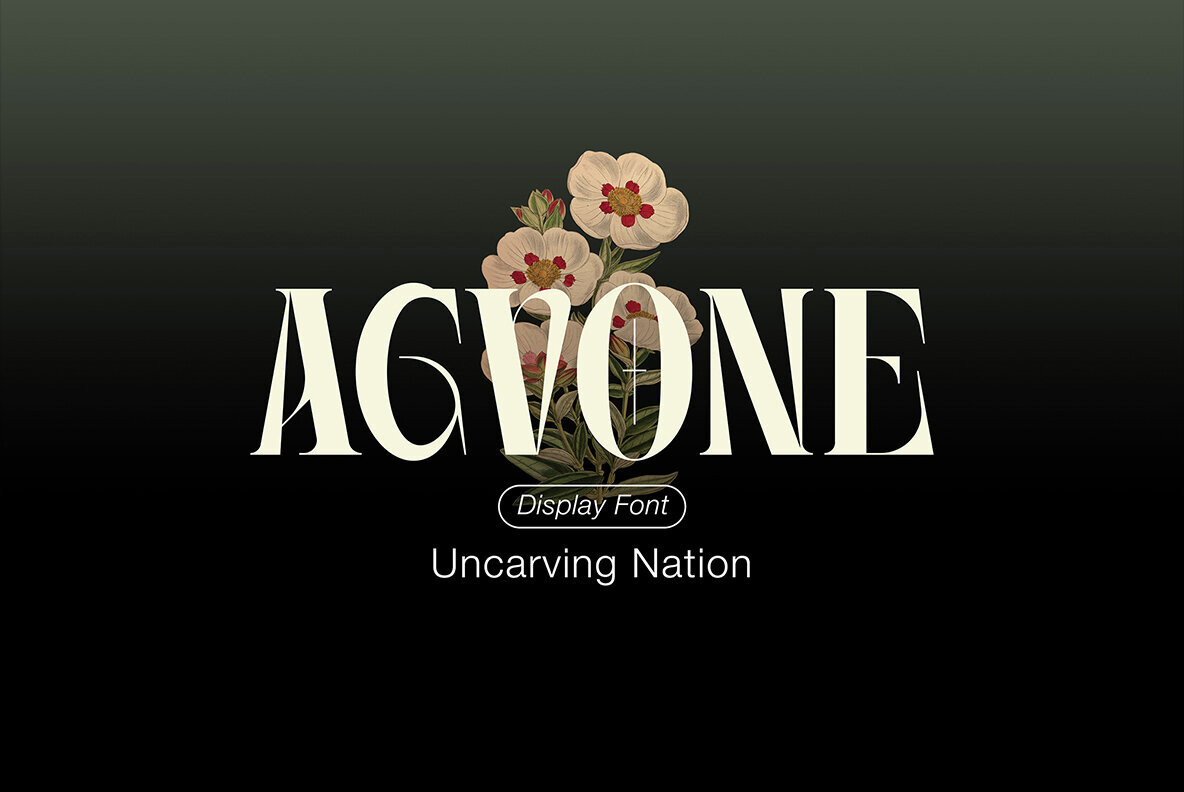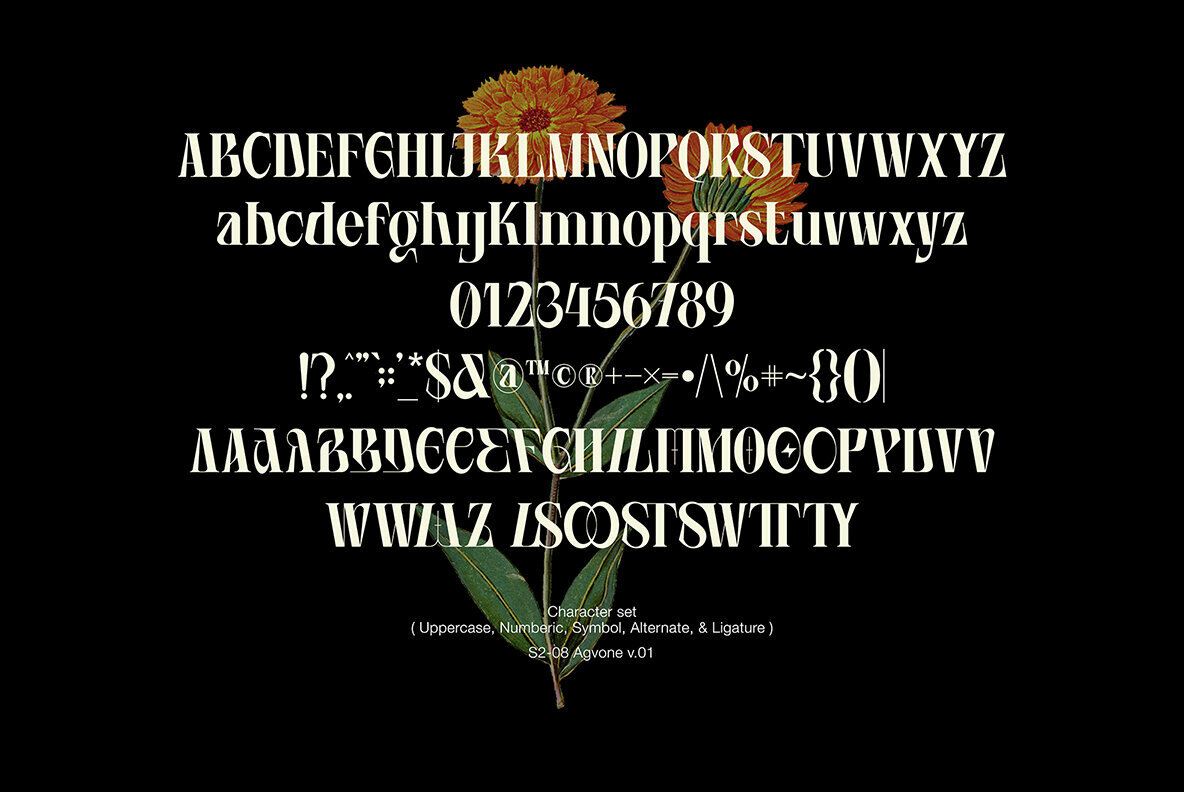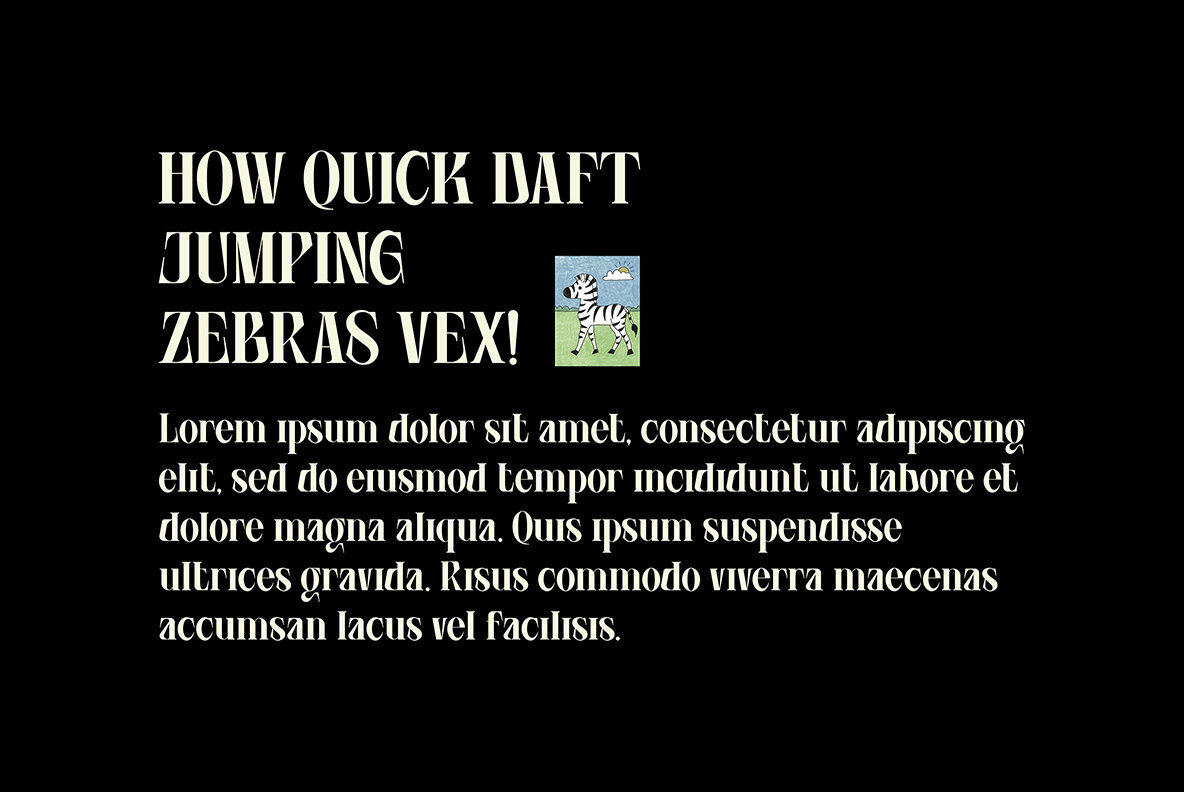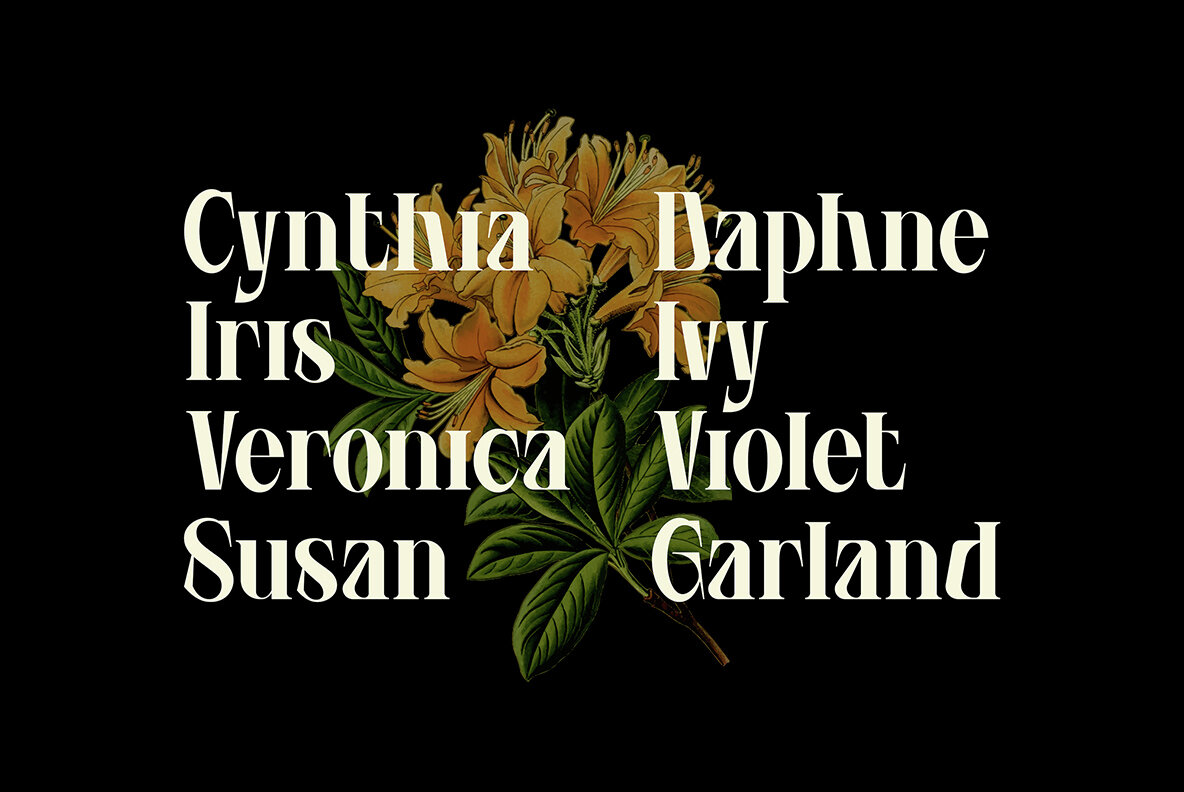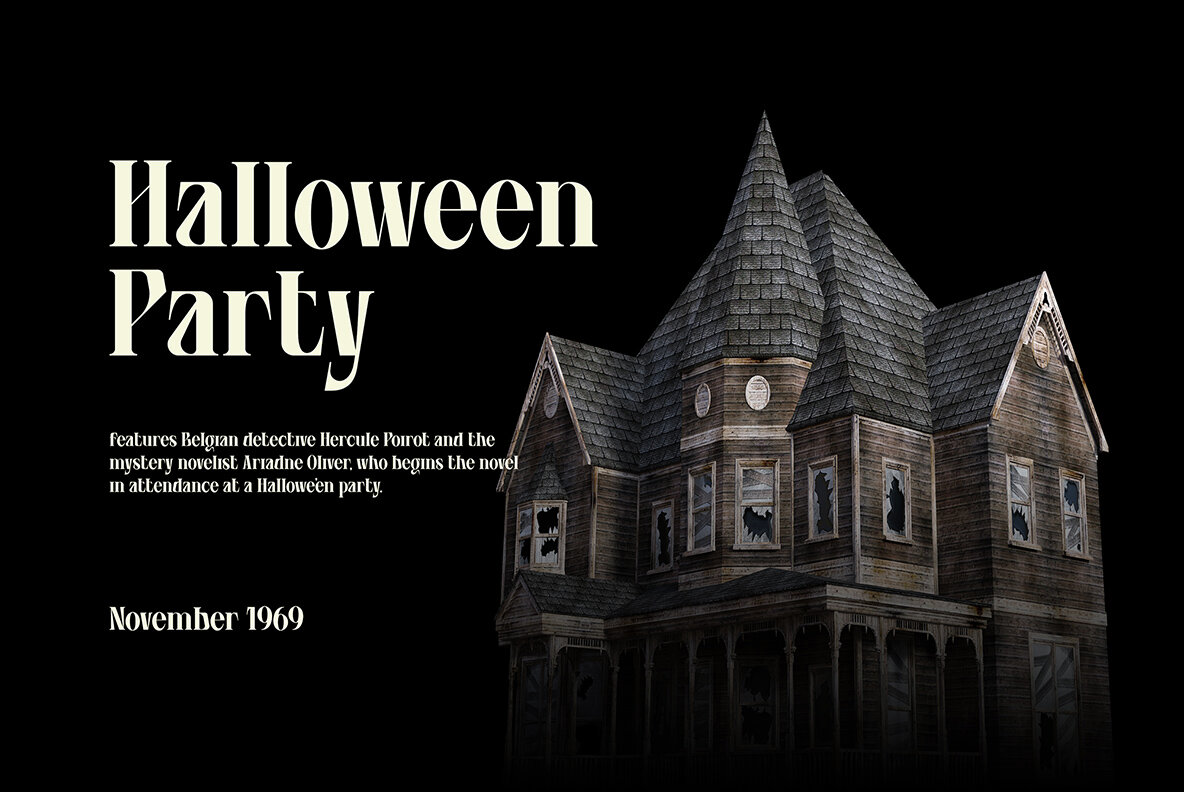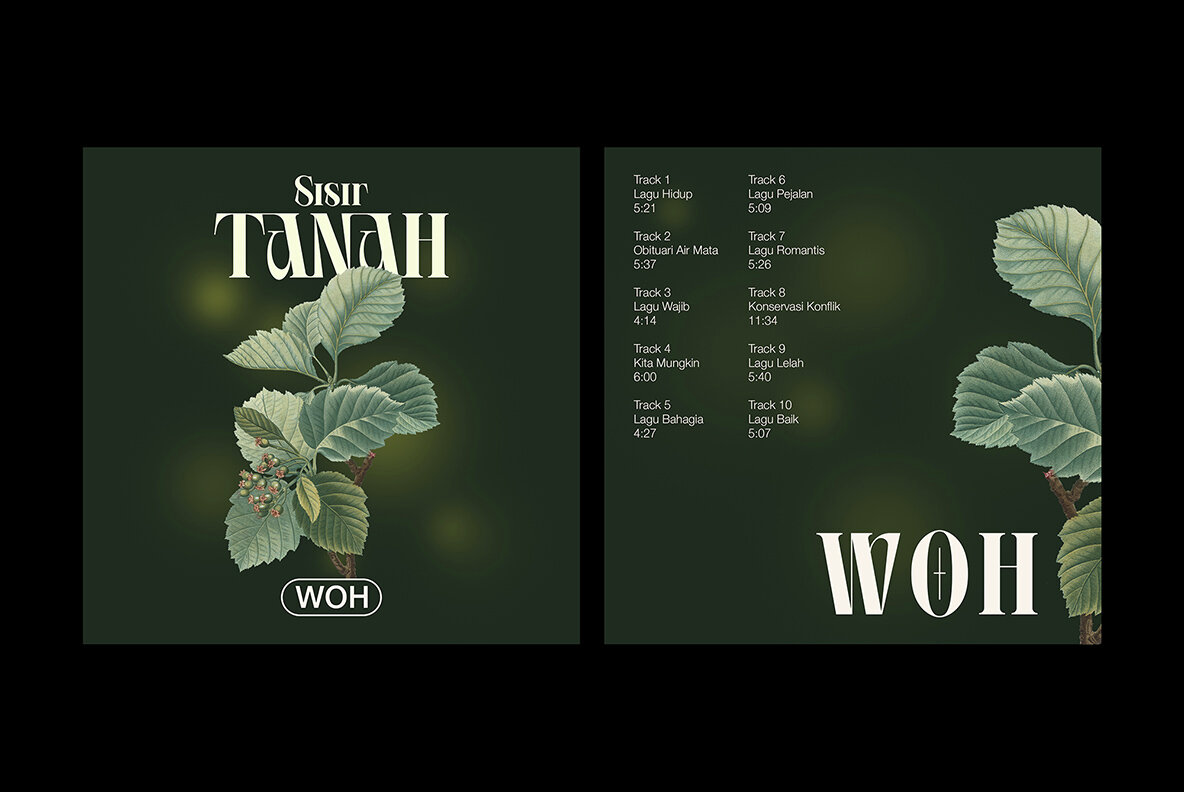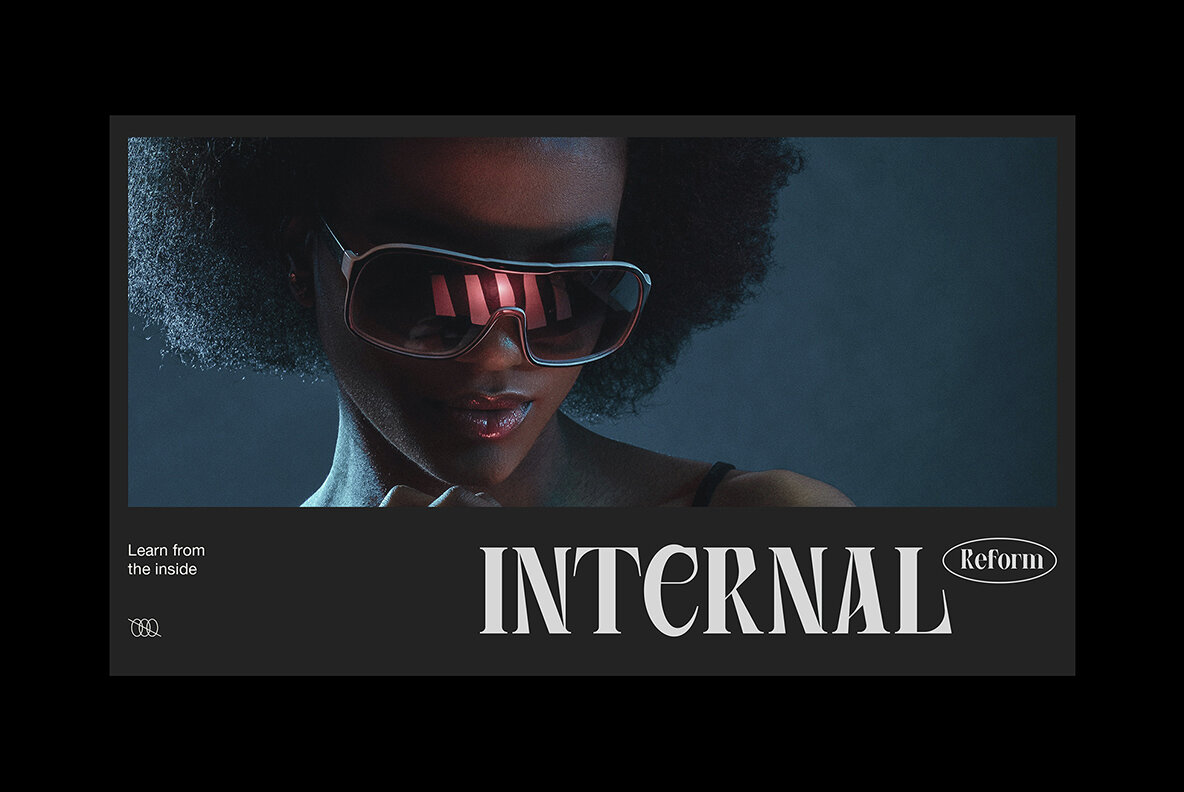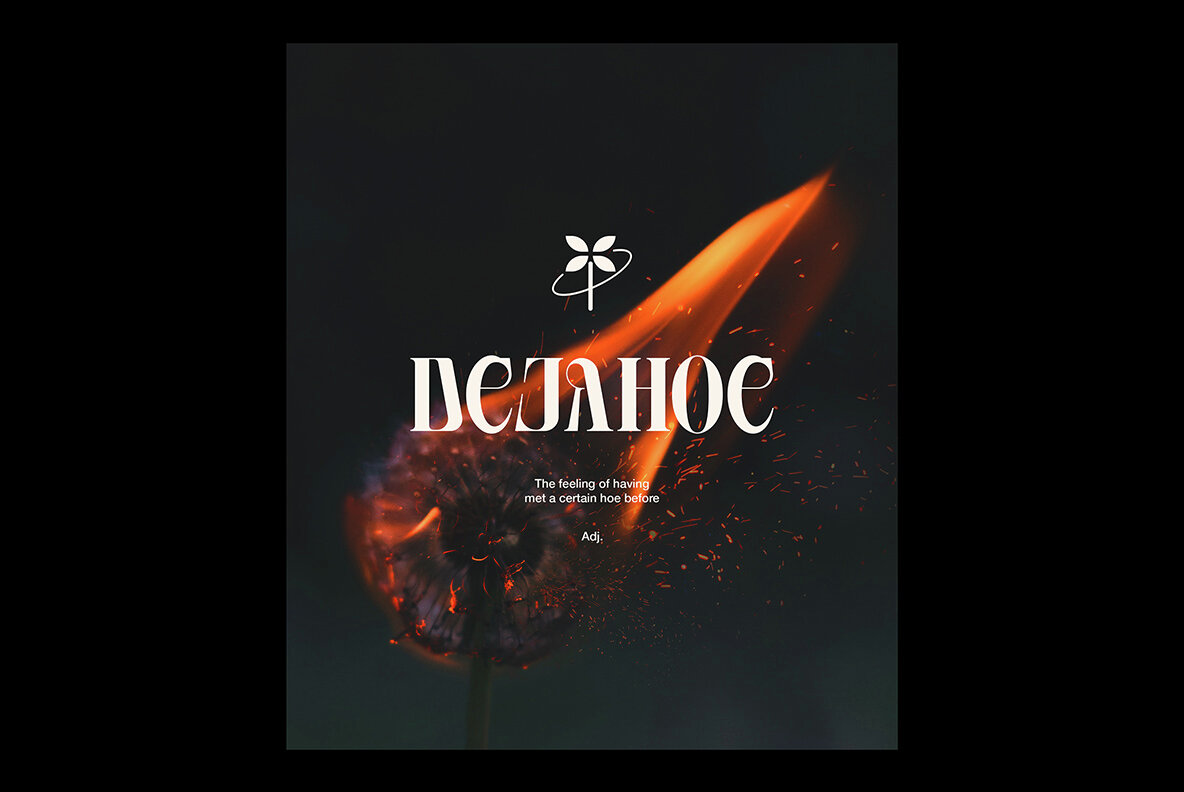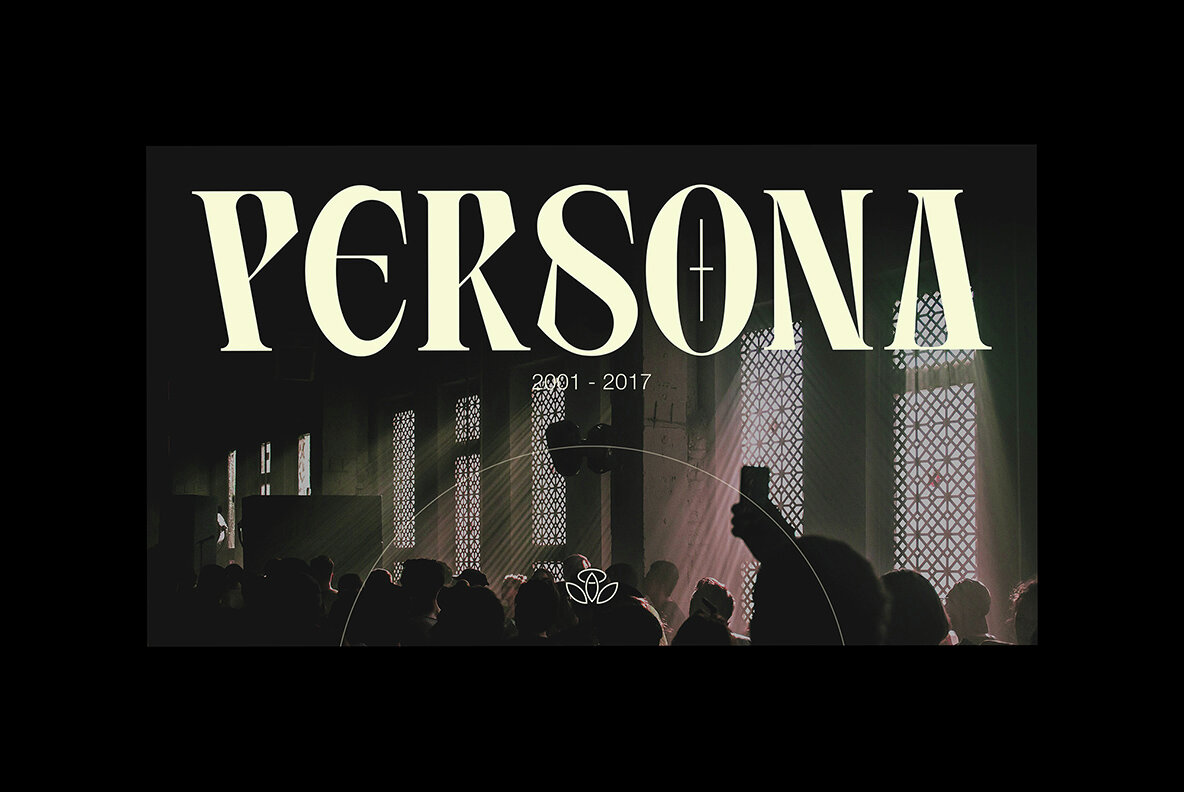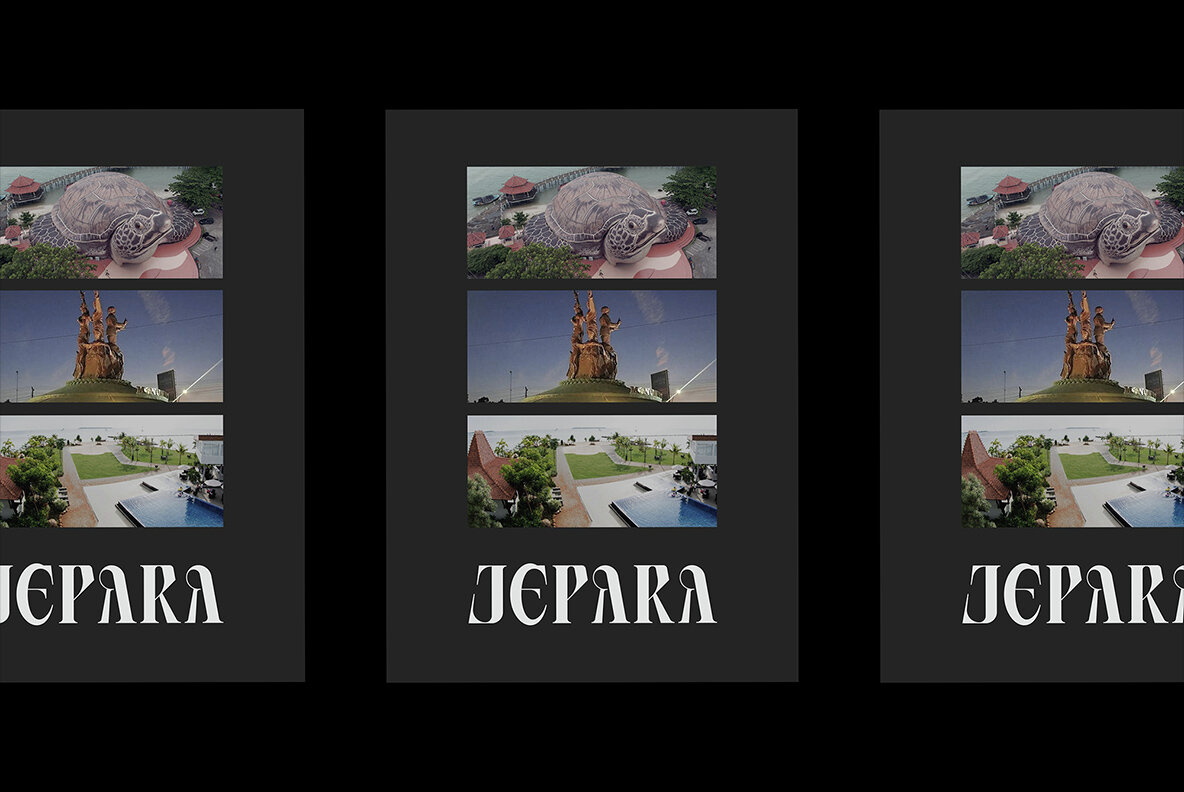
Agvone Font
Express yourself with Agvone, a modern serif font that effortlessly combines elegance and edge. Its high-contrast strokes and sharp curves create a commanding presence, while maintaining a touch of refined charm. The striking alternates offer versatility, allowing each project to stand out with sophistication.Agvone: Elegance Meets Edge
Uncarving Nation is a type foundry based in Jepara, Indonesia, Its aim is to explore typography based on elements that the founder, as a graphic designer, finds useful and enjoyable.Over the last two years, he has discovered many new aspects of typography from various genres, which he combines to create fr...